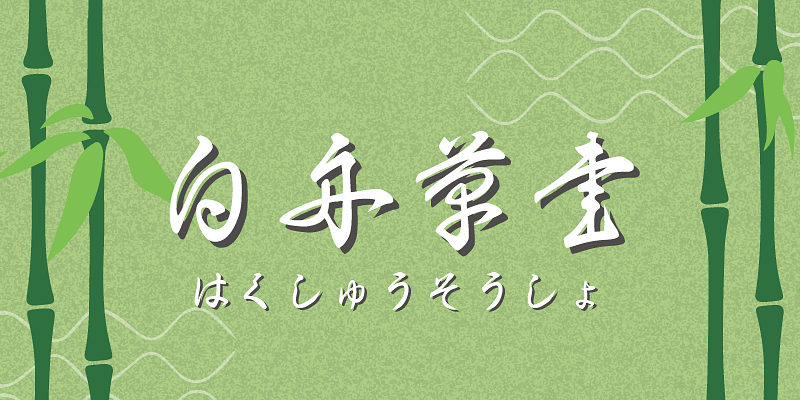
This readable sosho (cursive calligraphic style) typeface has elegantly curved strokes.
Supported glyphs include: 1,026 Kyoiku-yo-kanji (Ideographic Characters for Education), alphanumeric, full-width hira-gana and kata-kana, and miscellaneous symbols.